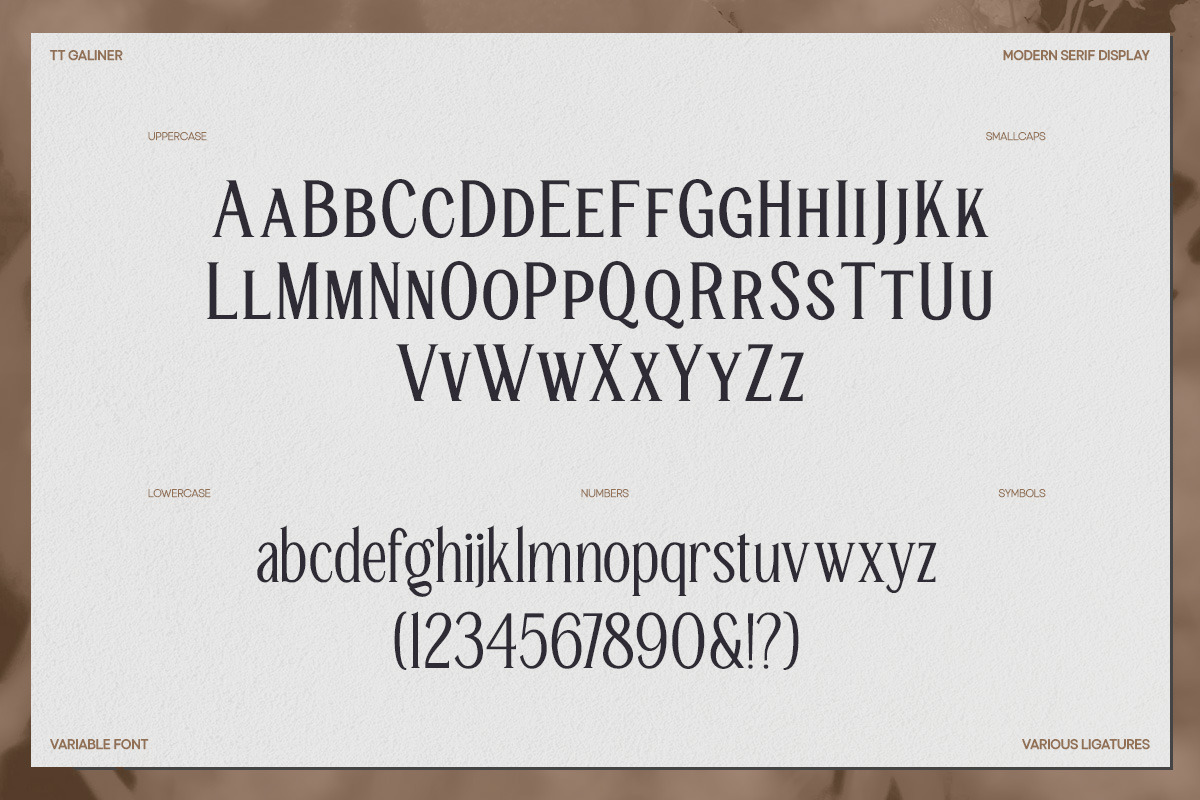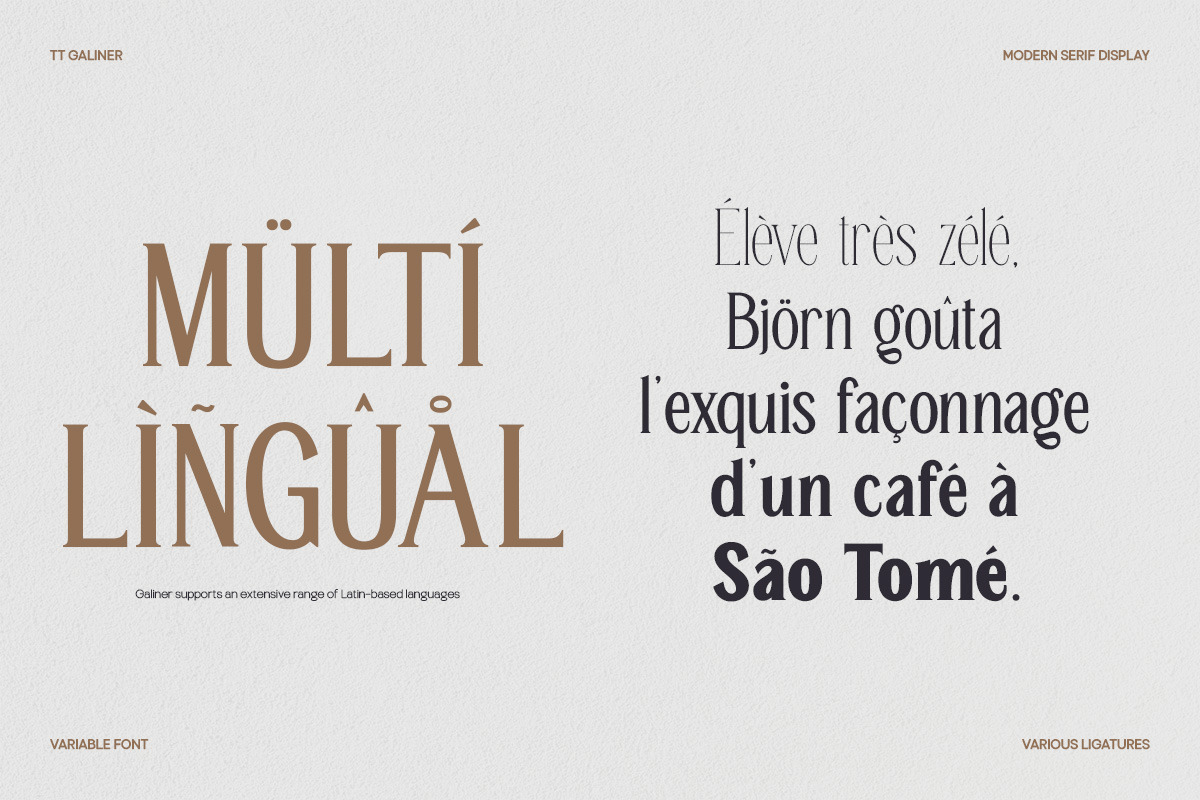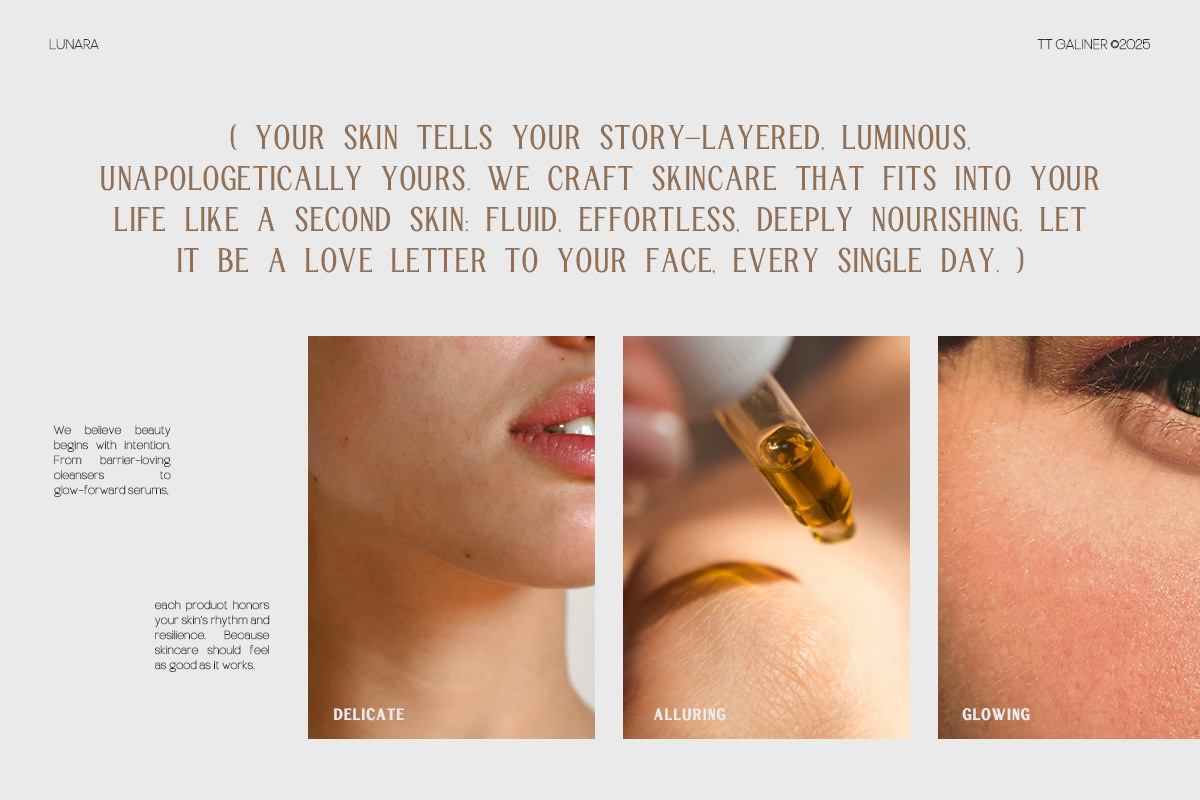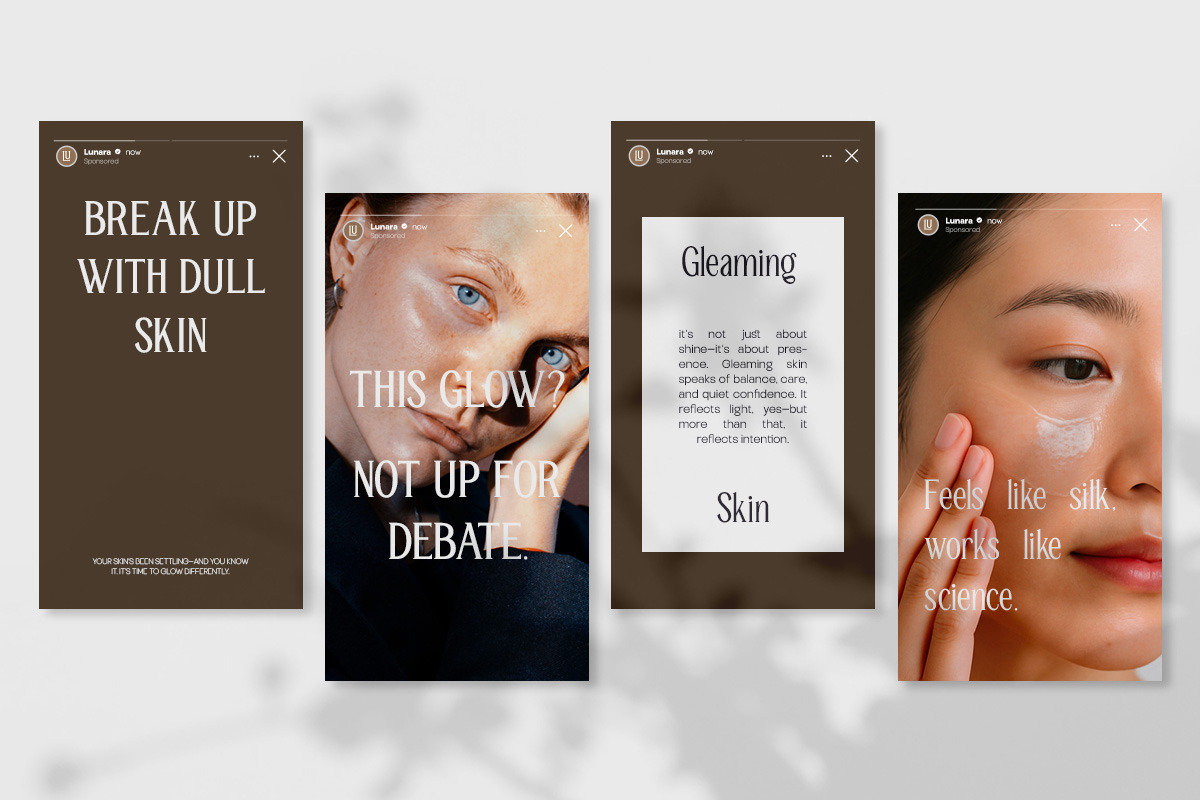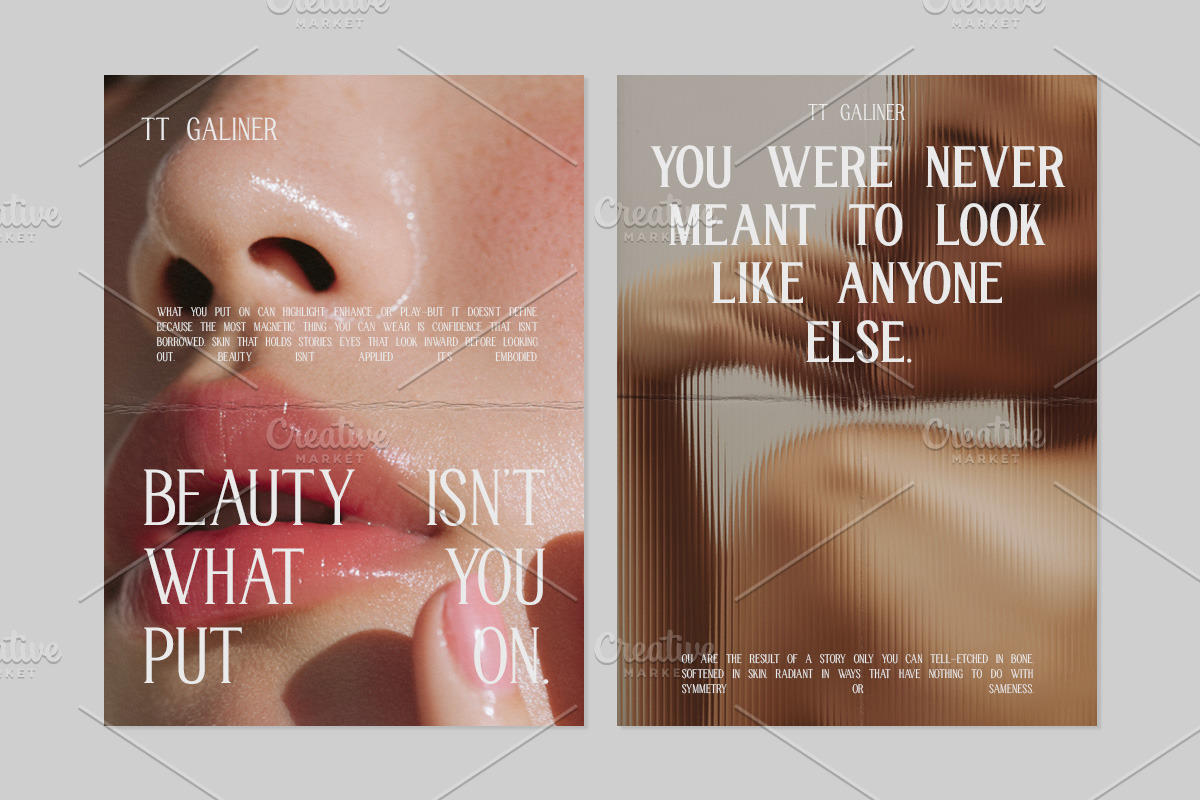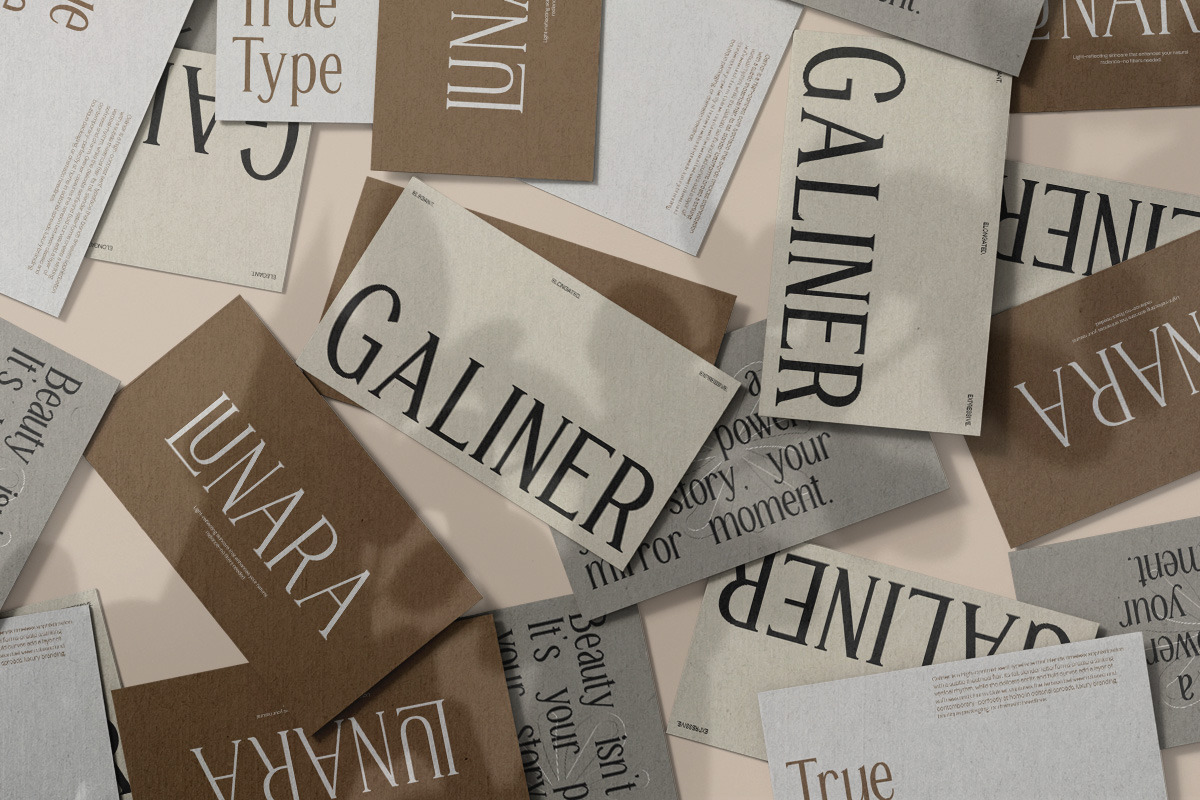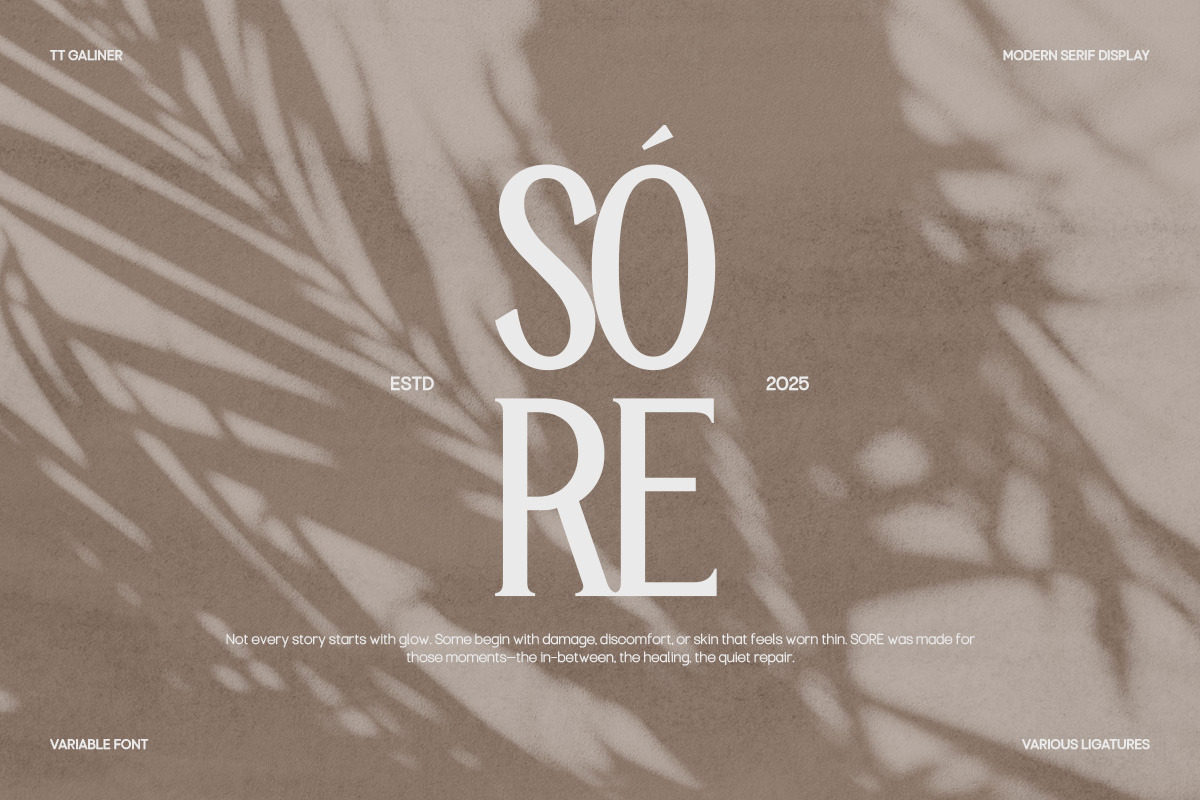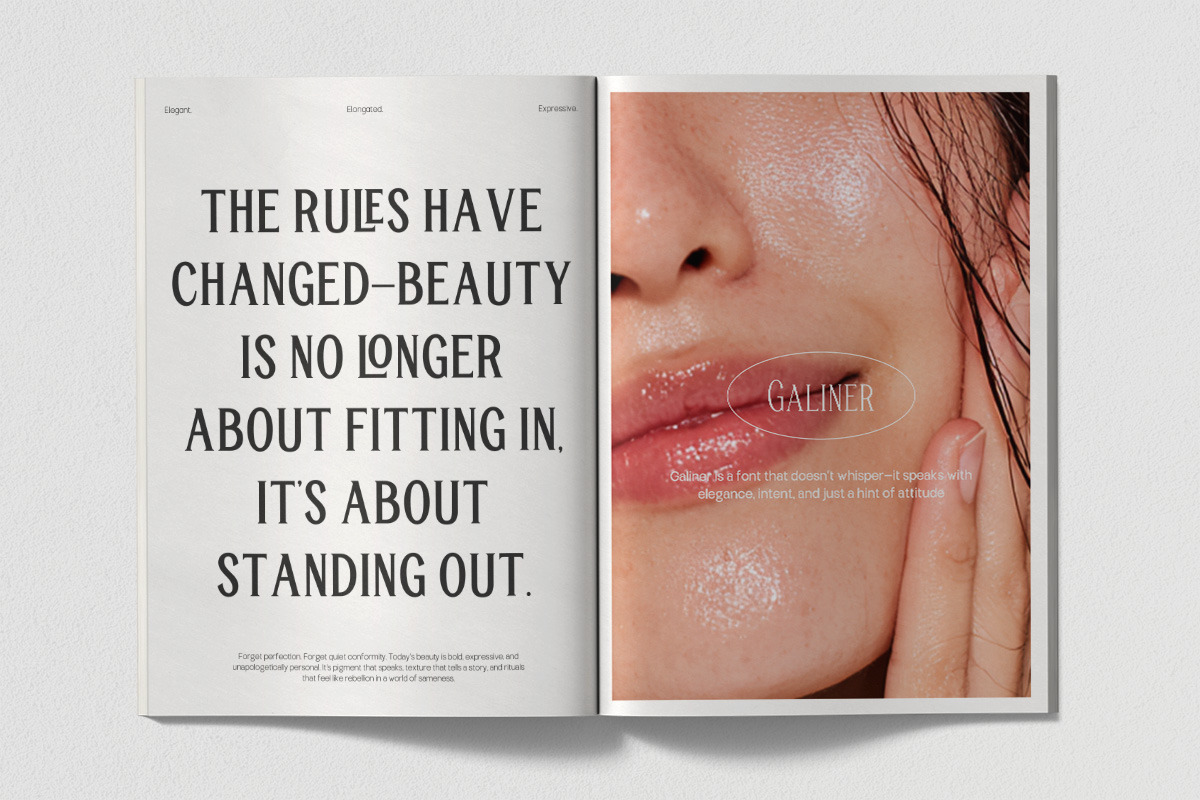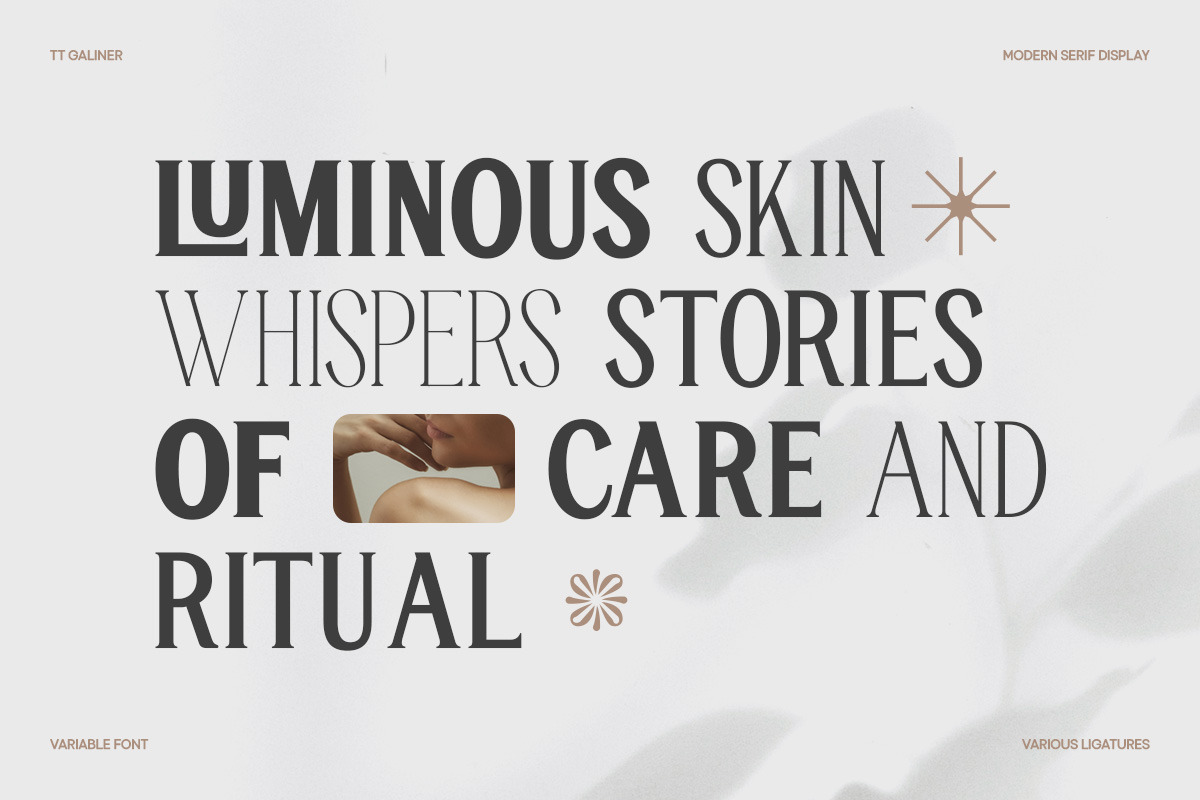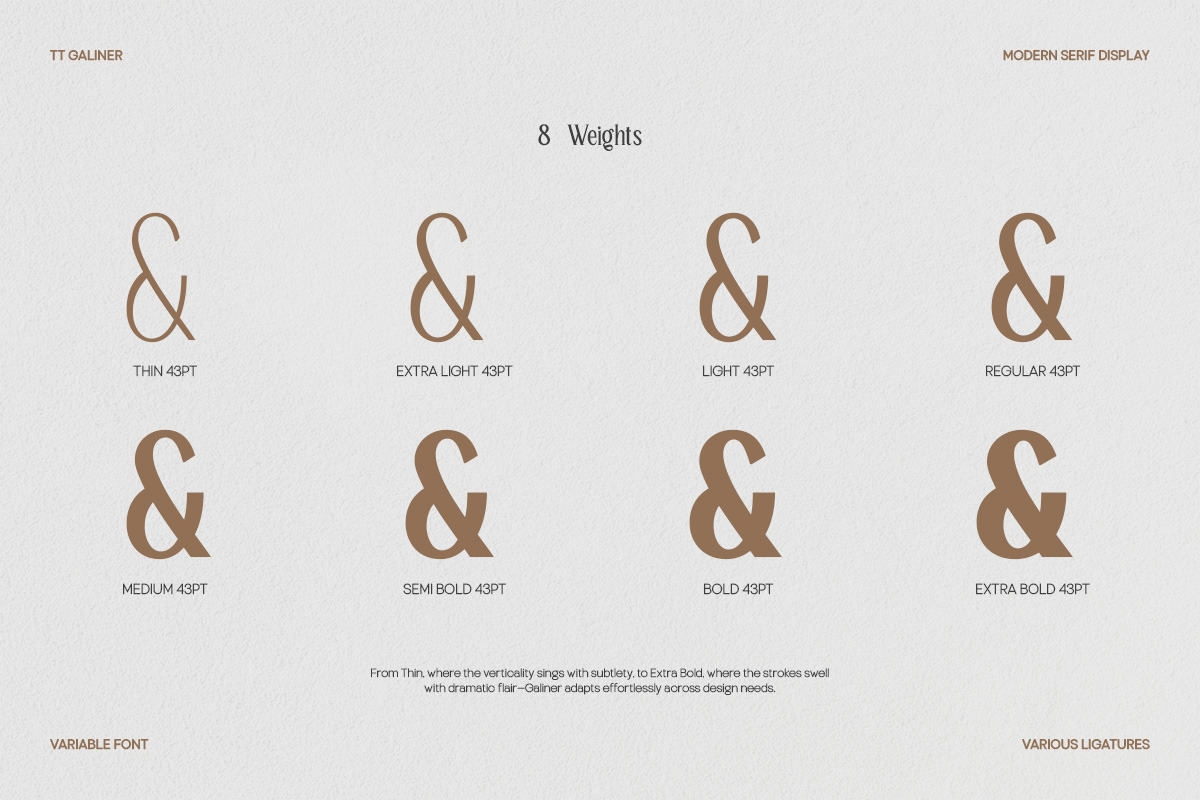
TT Galiner – Timeless Elegance Serif
TT Galiner is a modern serif typeface that blends timeless elegance with subtle contemporary details. Designed to offer both sophistication and readability, TT Galiner features support for small caps and clean, well-structured letterforms — making it a versatile choice for refined and professional design work.
With its distinctive serifs, balanced contrast, and graceful curves, TT Galiner performs beautifully in both large display sizes and extended text settings. Whether you’re crafting editorials, branding systems, or packaging, this typeface brings a sense of intelligence and poise to your typography.
TT Galiner communicates with clarity and charm — a typeface that feels polished yet personable. It’s a flexible tool for designers who seek strong structure without sacrificing personality.